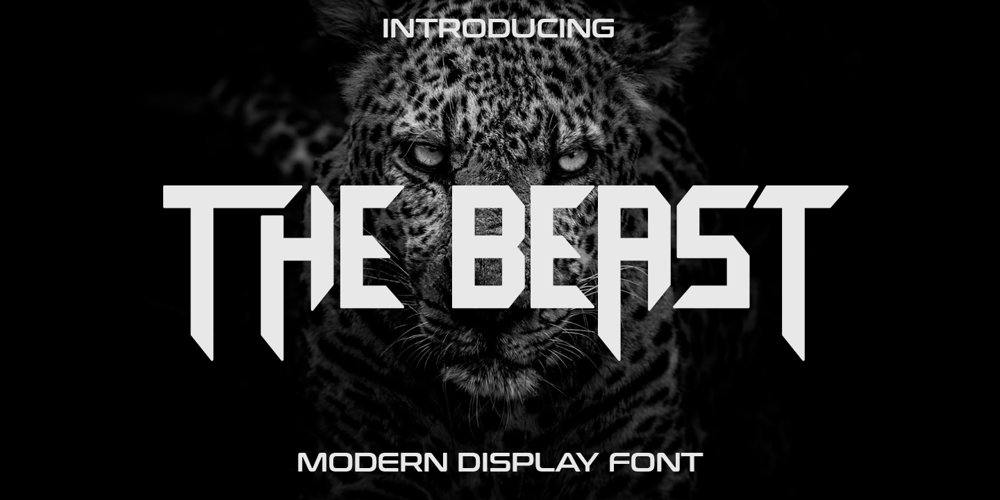
The Beast Font Family was designed by RoninDesign and published by Ronin Design. The Beast contains 1 styles and family package options. The Beast is a modern display font, featuring ligature and alternate will make your design look stunning.This font will work perfect for logo, poster, business card and cover design.